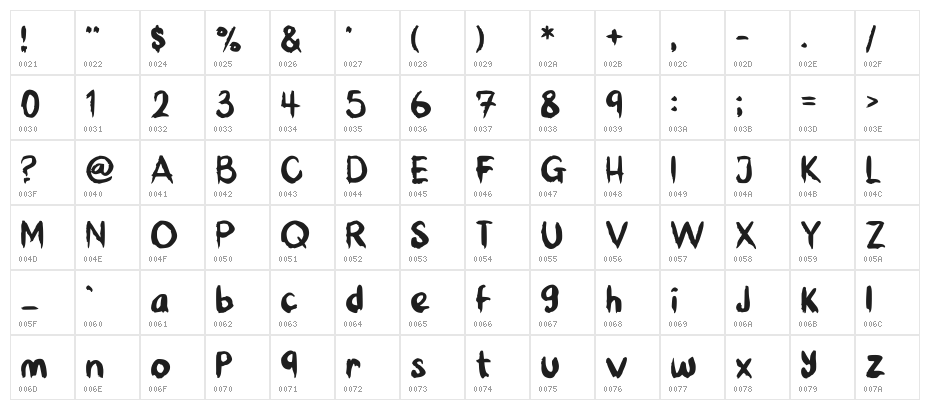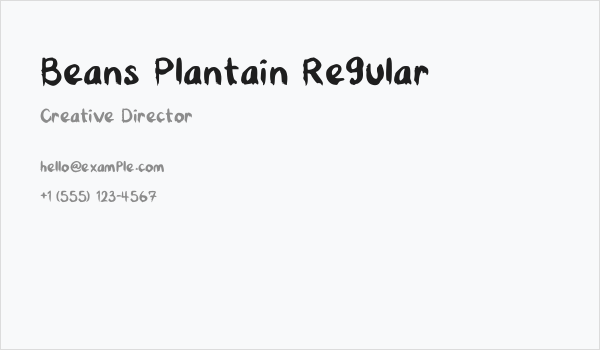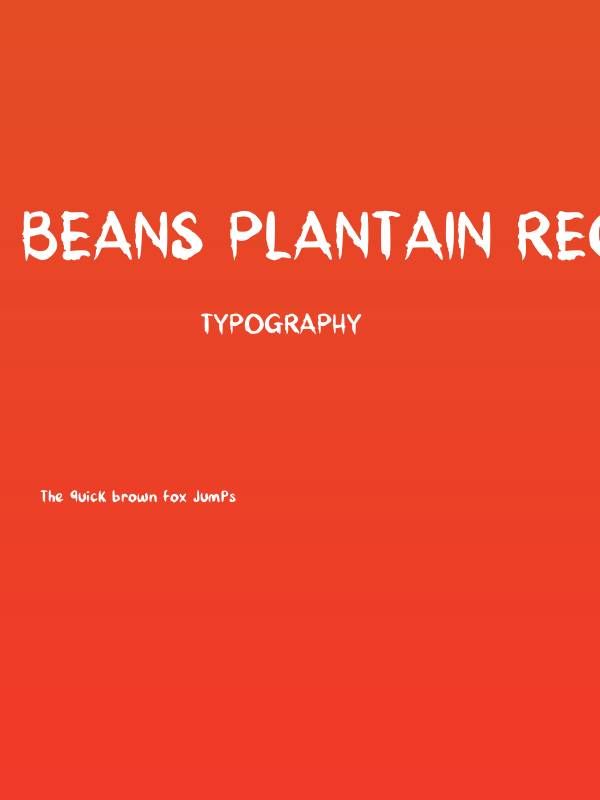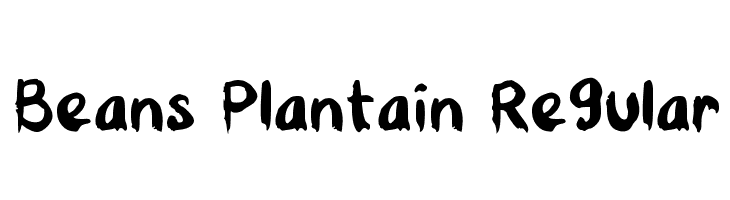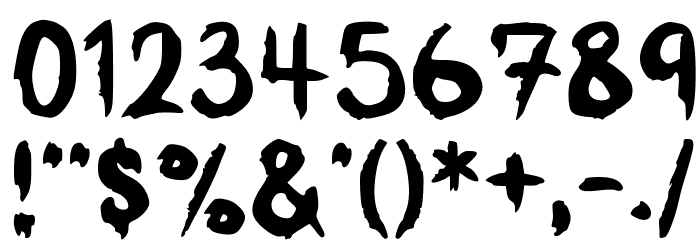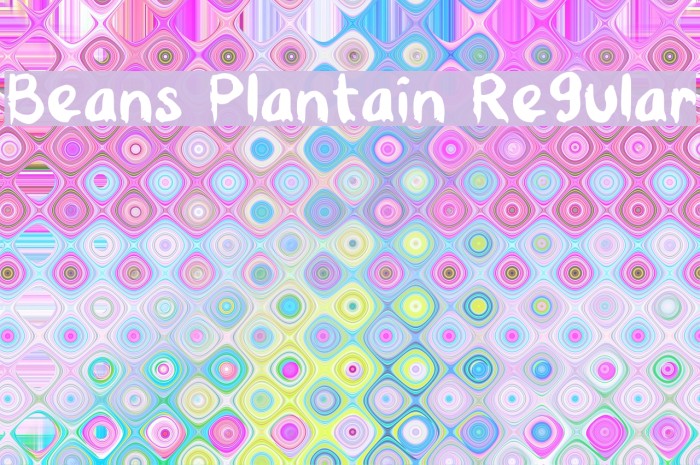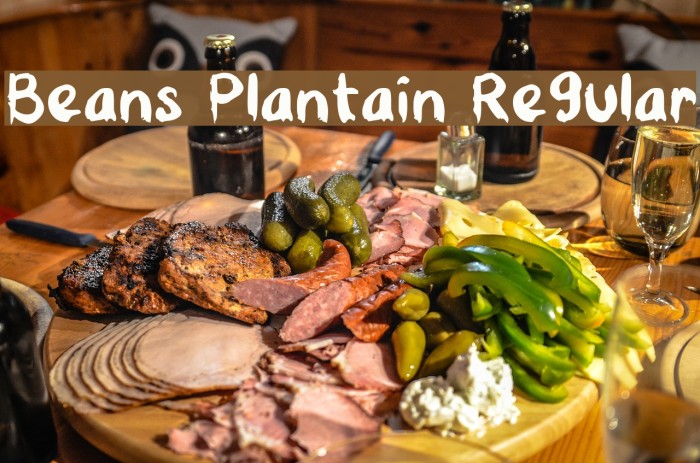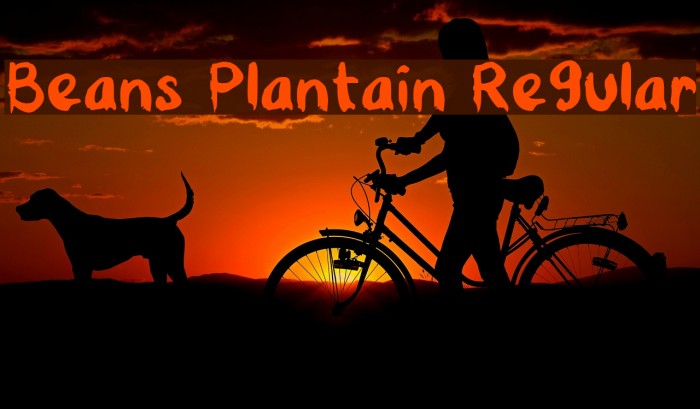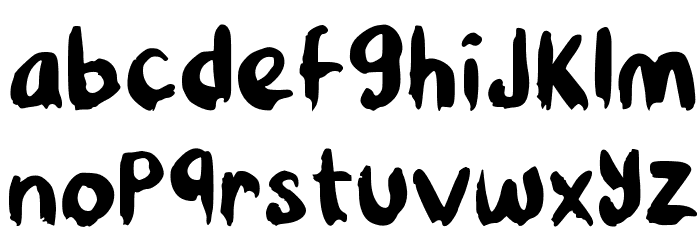
Beans Plantain Regular Font
Beans Plantain Regular Description
This font features a bold and expressive style with a hand-drawn appearance, characterized by irregular edges and a playful, organic feel. The uppercase and lowercase letters maintain a consistent weight, creating a cohesive look across the alphabet. The numbers and special characters follow the same design principles, ensuring uniformity throughout. The strokes are thick and uneven, giving the font a dynamic and energetic vibe. This style is reminiscent of graffiti or street art, making it ideal for projects that require a bold statement or an artistic touch.
| Proposed Projects | Ideal for posters, album covers, street art designs, and creative branding projects. |